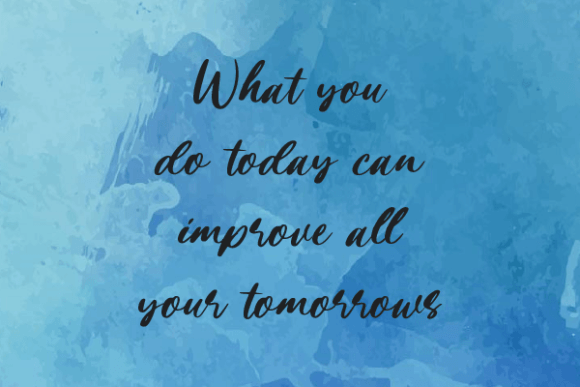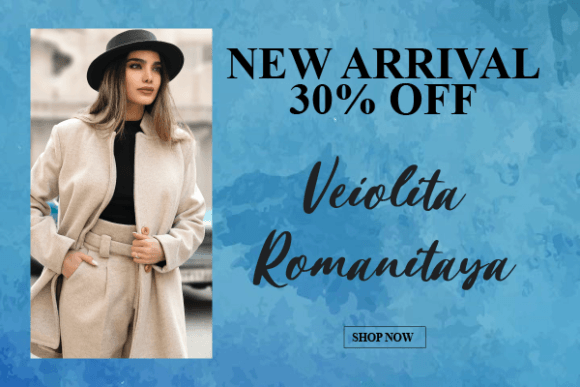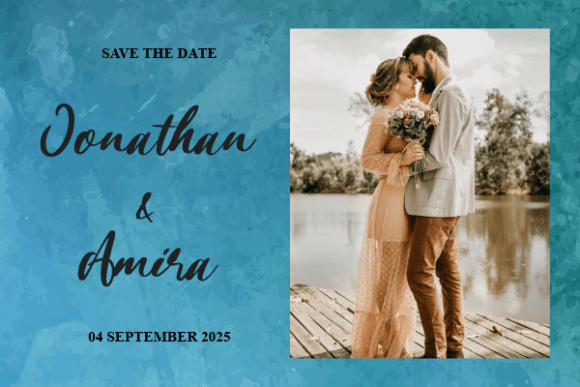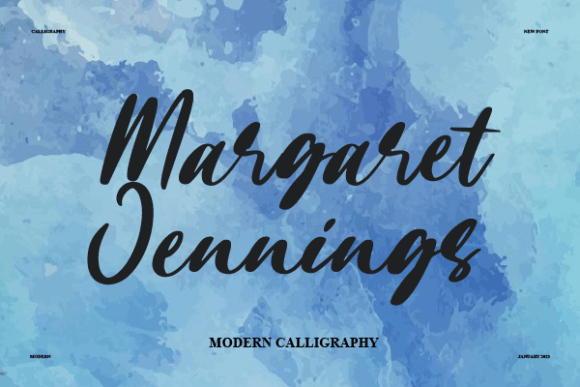
Introduction to Margaret Jennings Font
Margaret Jennings is an exquisite handwritten font, masterfully designed to become a true favorite.
Key Features of Margaret Jennings Font
Why Choose Margaret Jennings Font?
Margaret Jennings Font offers exceptional quality and versatility, making it a valuable addition to your design toolkit. Whether you’re creating for personal projects or commercial use, Margaret Jennings Font delivers professional results.